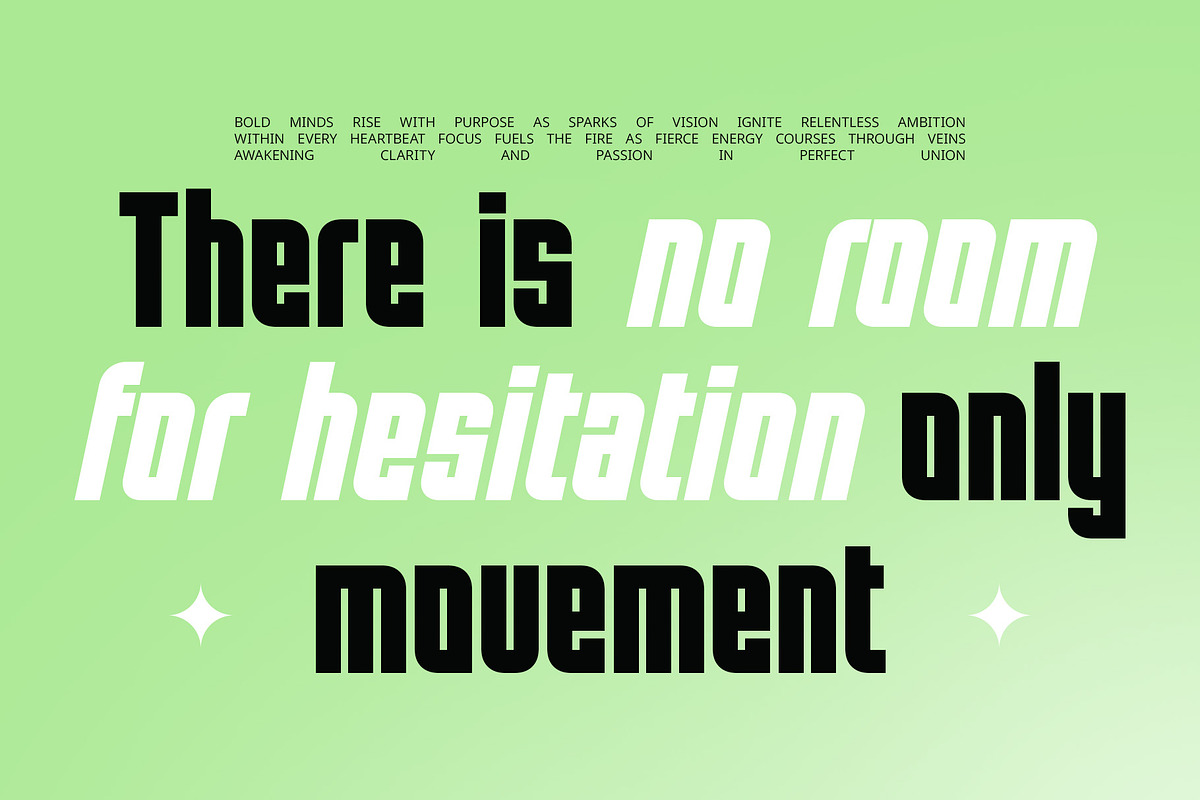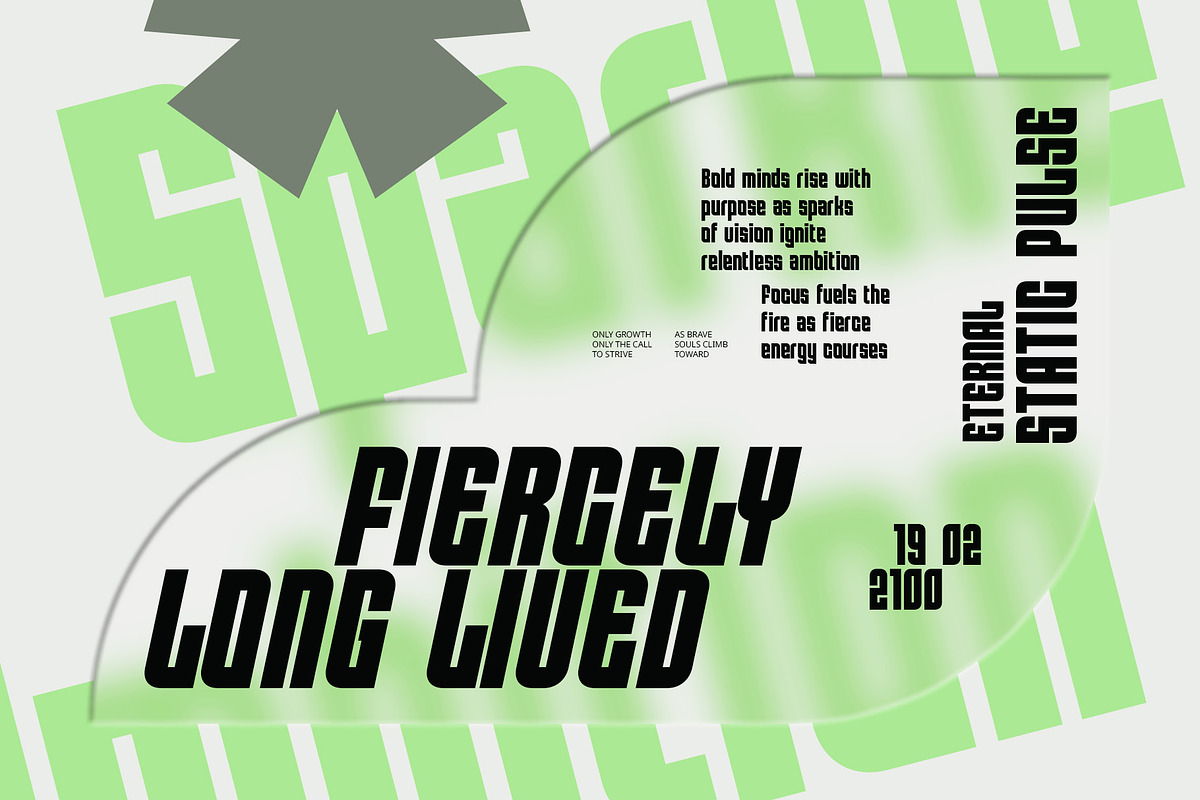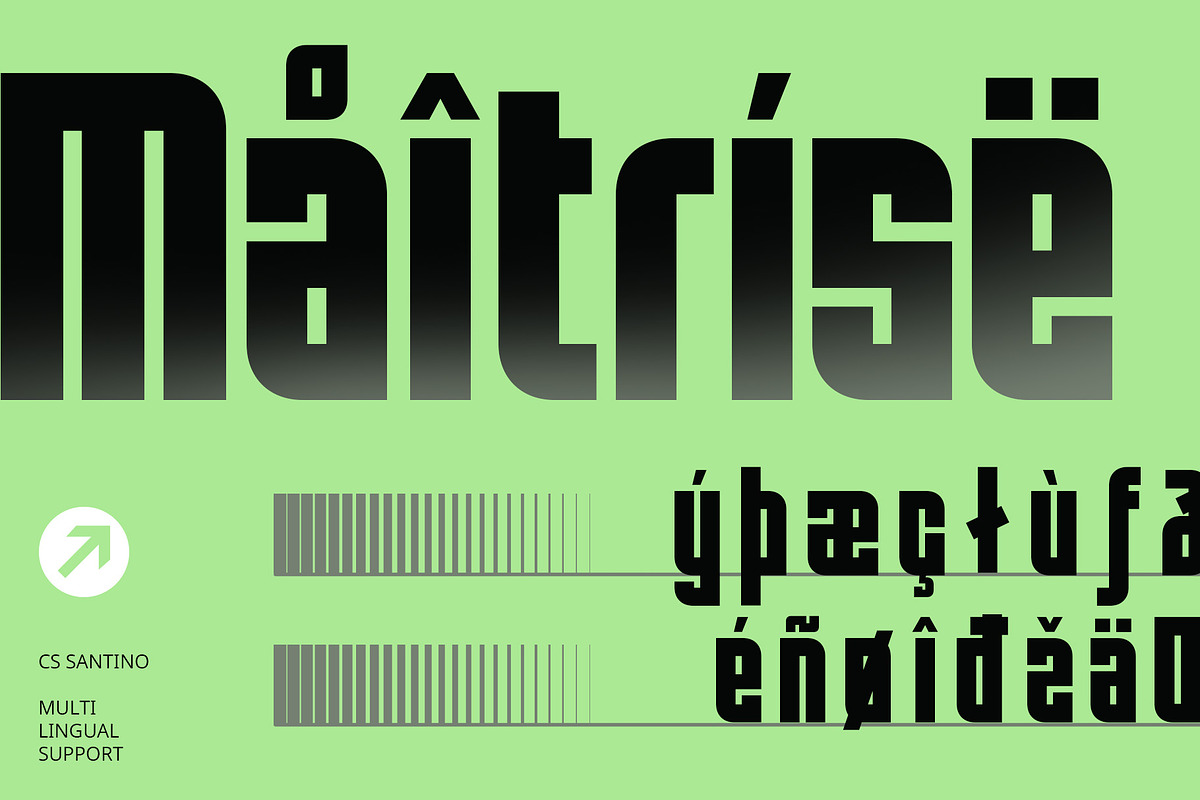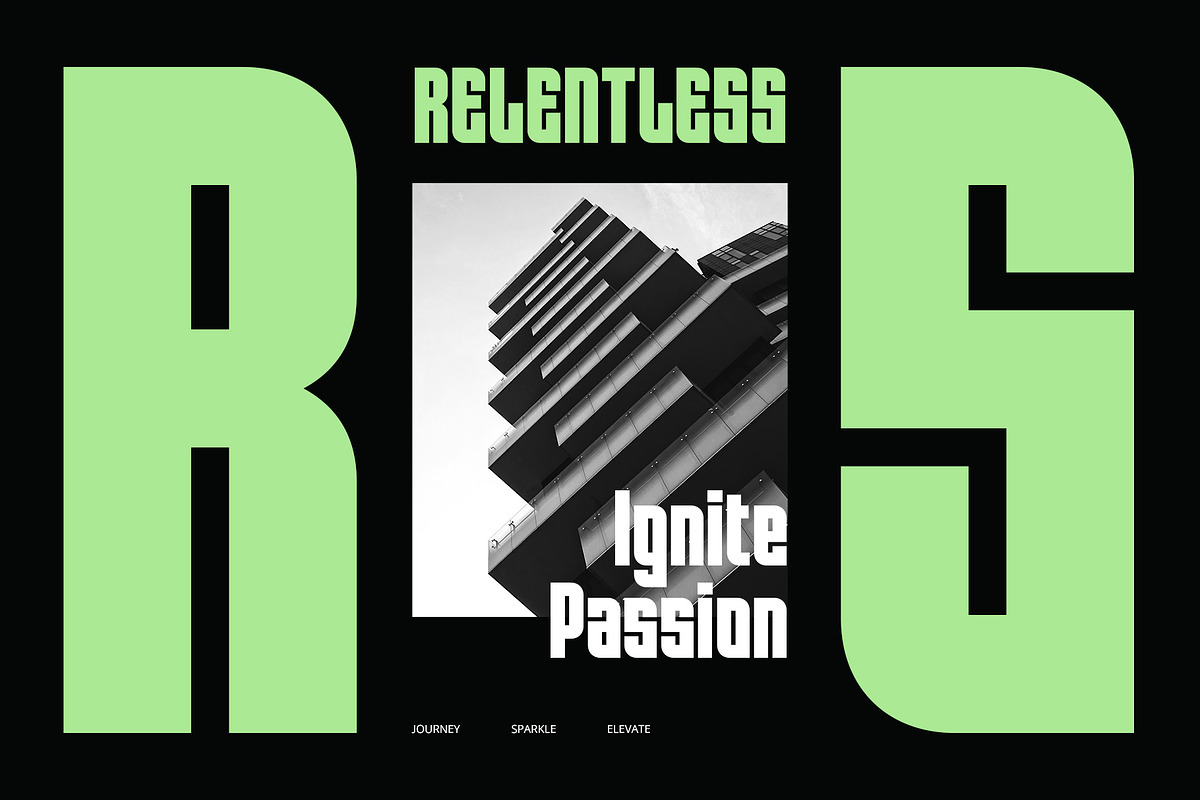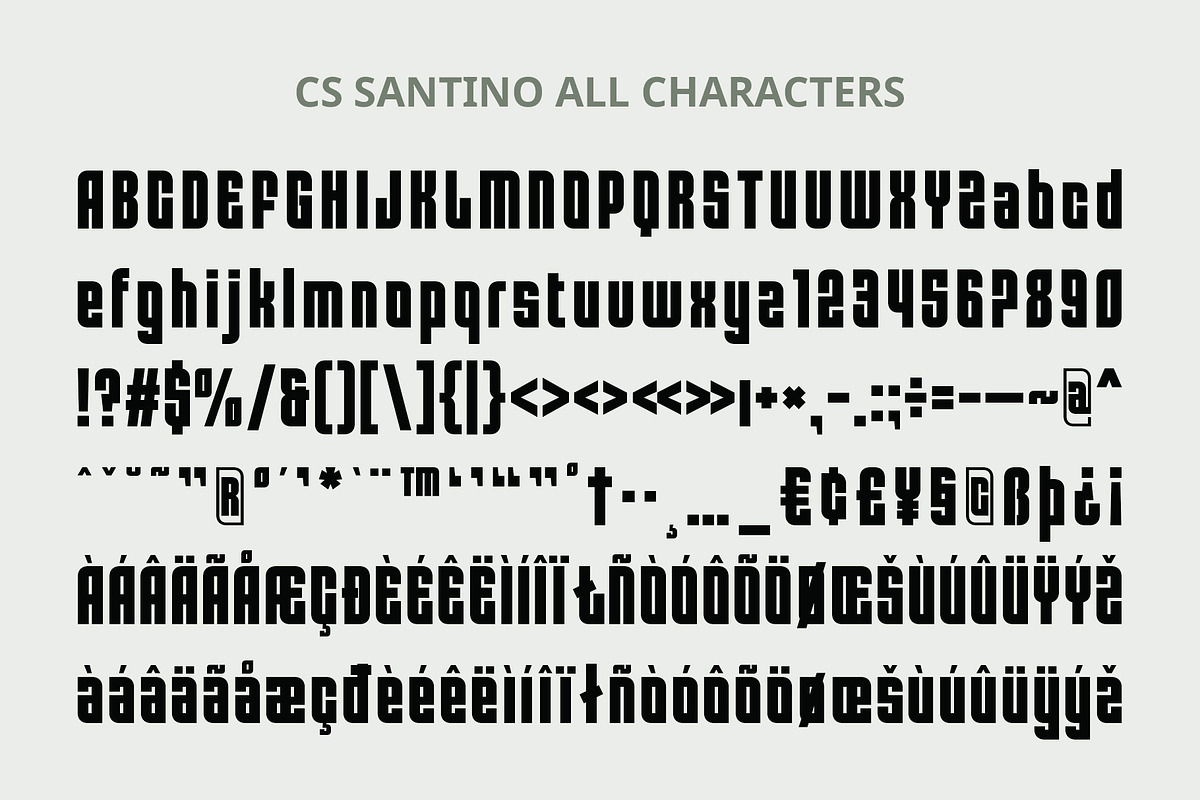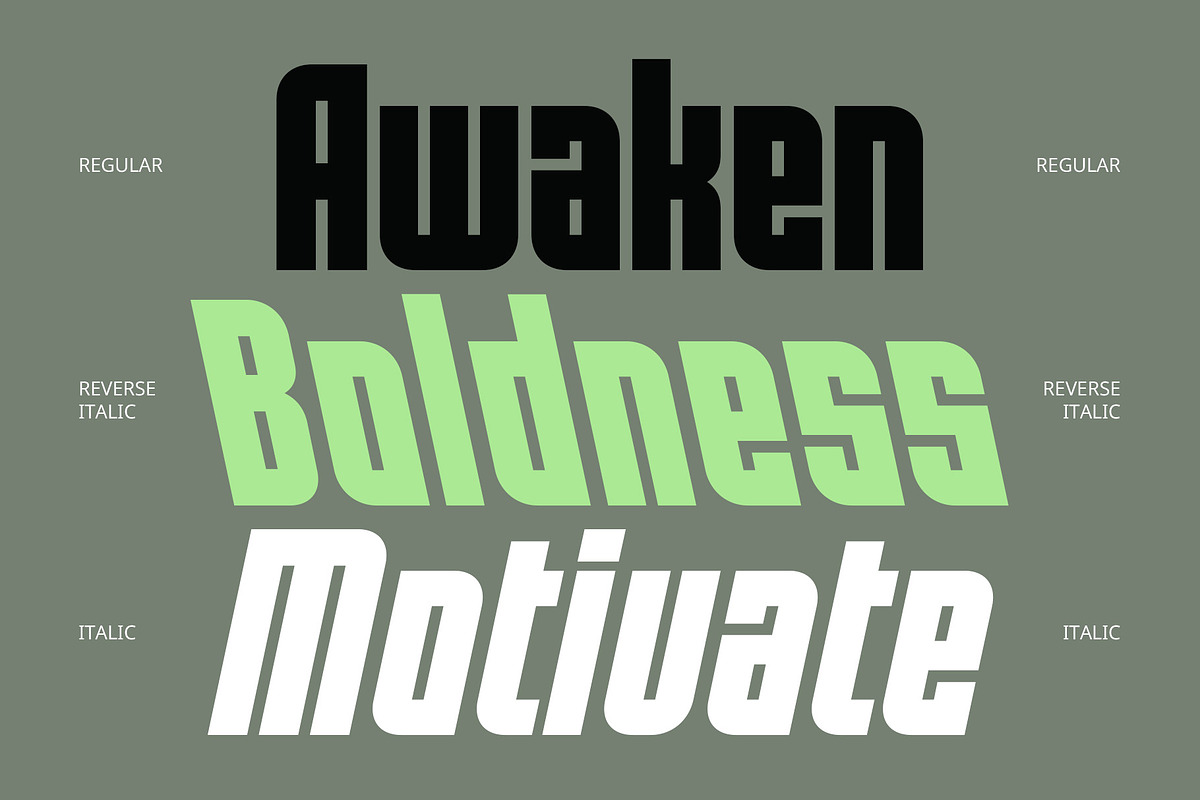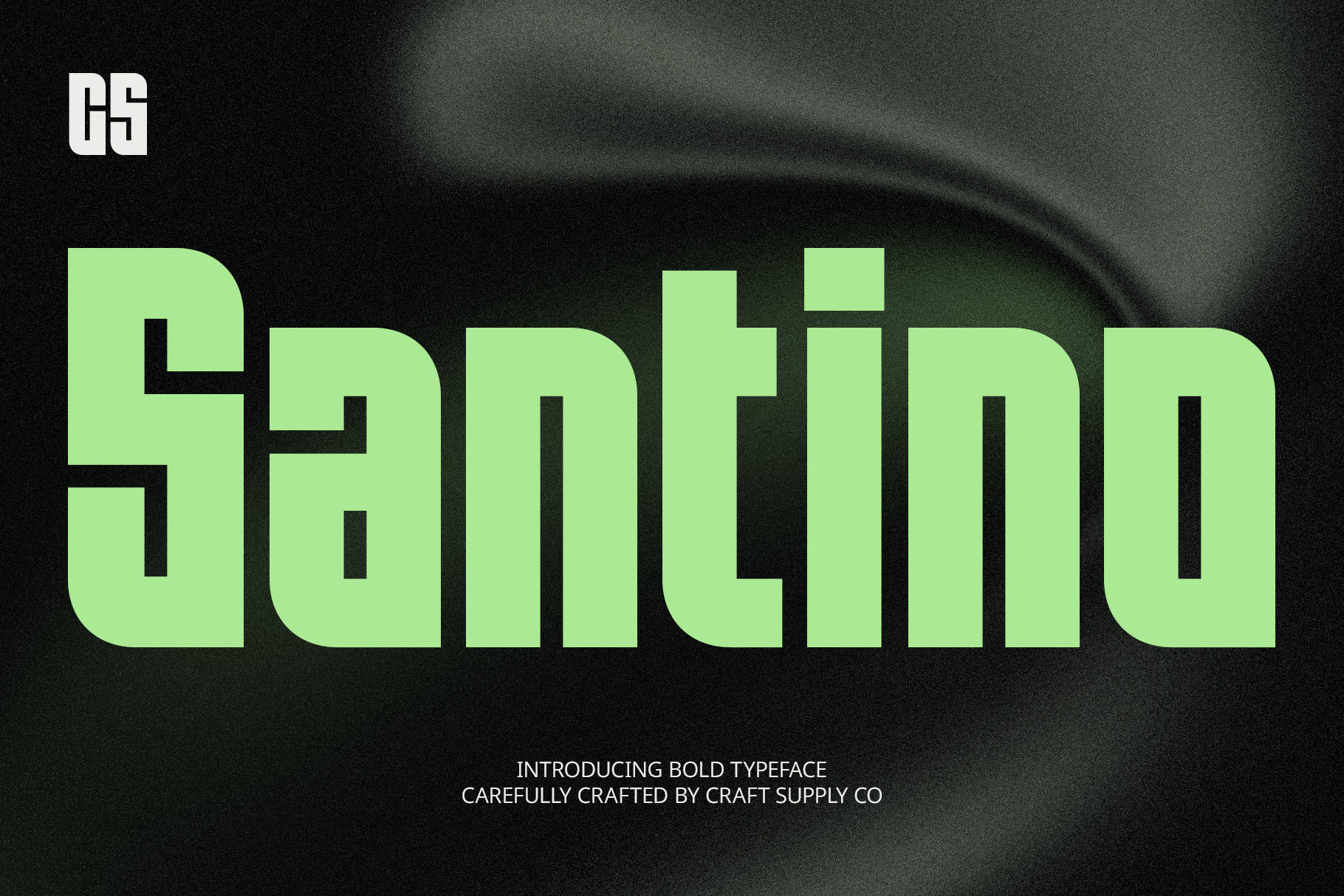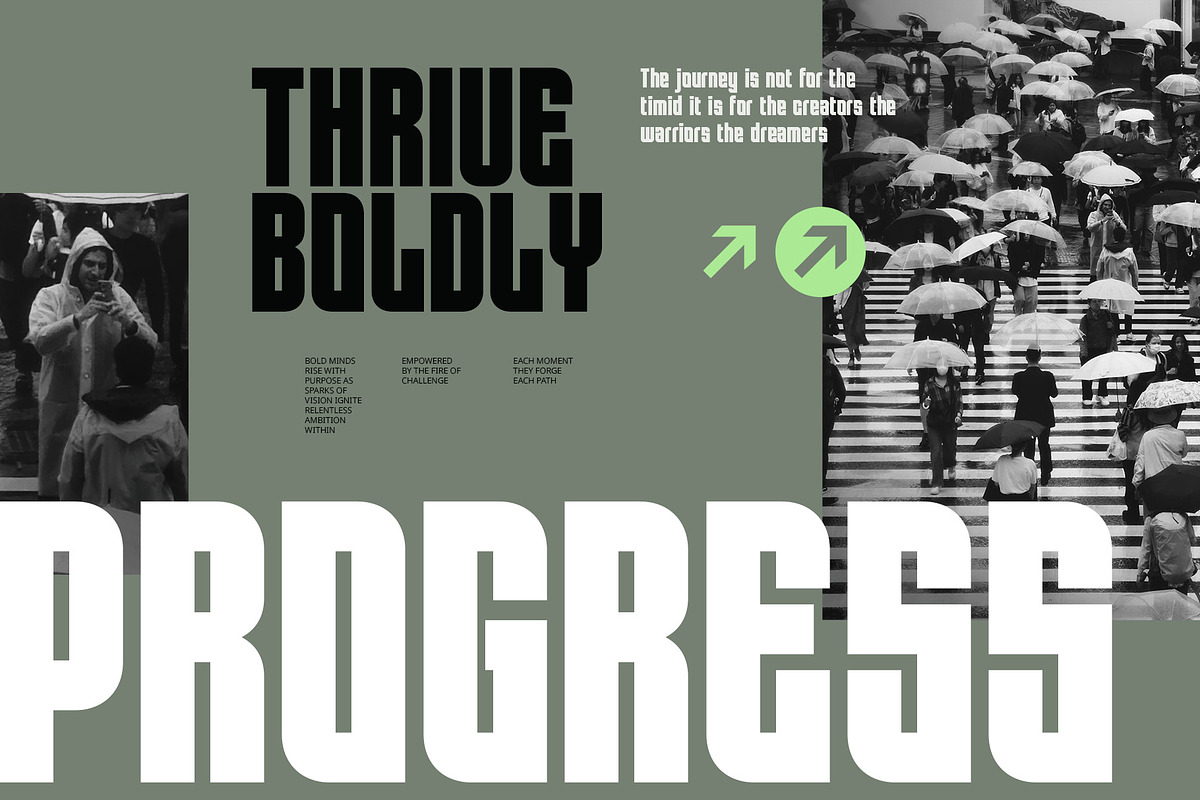
CS Santino – Bold Font
CS Santino – Bold Font: Cool Confidence in Every Letter
Bold, Clean, and Contemporary Style CS Santino is a modern sans-serif font that stands out with its bold weight, clean lines, and contemporary construction. It brings a refined yet impactful presence to any design, offering a perfect balance between strength and simplicity. The sharp, structured letterforms are thoughtfully crafted to create a polished and modern aesthetic.
Striking and Uniquely Cool Character Designed to make an impression, CS Santino radiates a bold and cool attitude. Its unique shapes and strong stance give off a confident, forward-thinking vibe—ideal for designers looking to deliver messages with clarity and charisma.
Versatile for a Wide Range of Applications CS Santino’s clarity and consistency make it adaptable across various design mediums. From digital interfaces and mobile apps to posters, editorial layouts, and product packaging, this font is equipped to handle diverse design needs. Its versatility allows it to shift from bold branding to sleek advertising without missing a beat.
High Impact with Clear Readability Despite its bold form, CS Santino ensures excellent legibility. The spacing, proportions, and clean structure support readability at both large and small sizes. This makes it an ideal choice for impactful designs that require both visual strength and functional clarity—such as logos, social media graphics, and headlines.